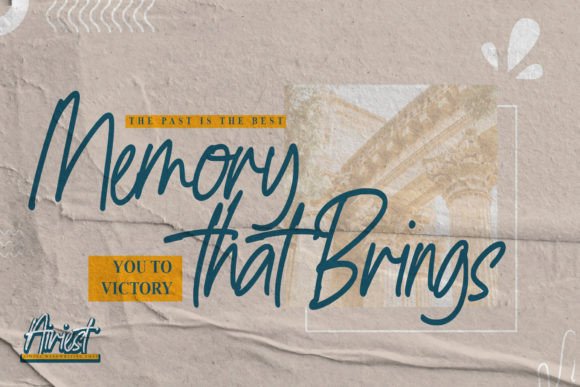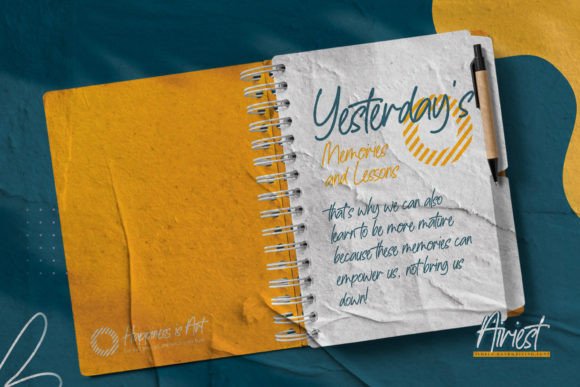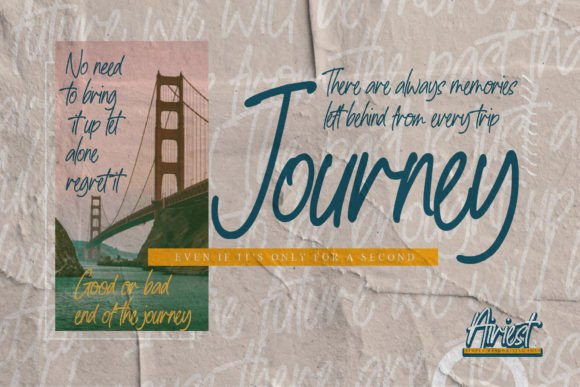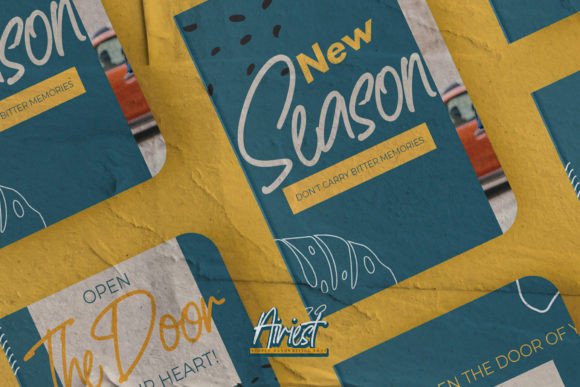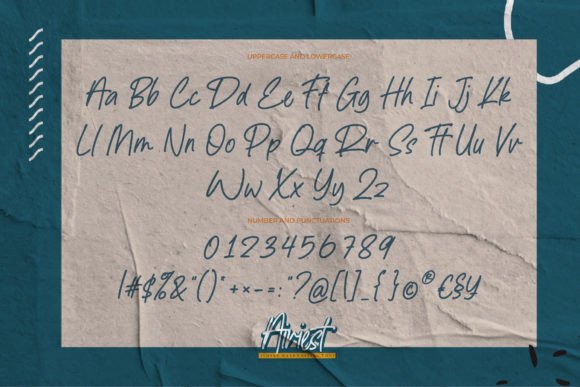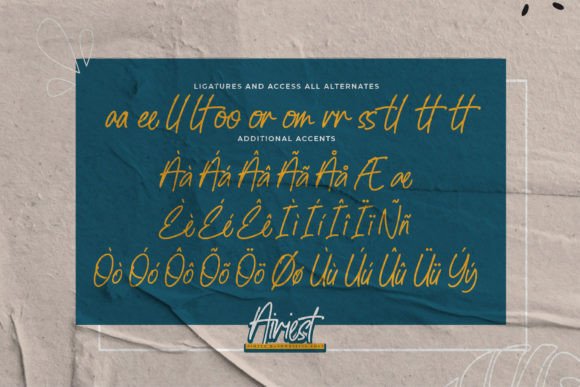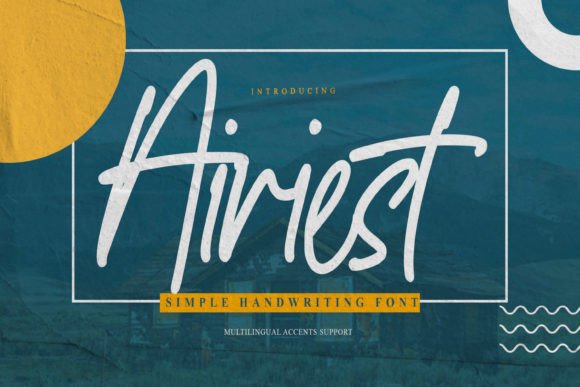
Airiest Font: The Ultimate Choice for Creative Projects
Are you a designer or crafter looking for a font that can elevate your creative projects to the next level? Look no further than Airiest, a simple and natural handwritten font that’s perfect for a wide range of applications. In this article, we’ll explore the features and benefits of Airiest, and why it’s becoming a favorite among designers and crafters.
What is Airiest Font?
Airiest is a beautifully designed handwritten font that’s characterized by its simplicity and natural flow. It’s a versatile font that can be used for various creative projects, including invitations, logos, book covers, crafts, quotes, sporty themes, logotypes, wordmarks, and many more. With its elegant and effortless style, Airiest has the potential to bring each of your creative ideas to the highest level.
Key Features of Airiest Font
So, what makes Airiest stand out from other fonts? Here are some of its key features:
• Simple and Natural: Airiest has a simple and natural handwritten style that’s easy to read and looks great on any medium.
• Versatile: This font is perfect for a wide range of creative projects, from invitations and logos to book covers and crafts.
• Elegant and Effortless: Airiest has an elegant and effortless style that adds a touch of sophistication to any project.
• Masterfully Designed: The font has been masterfully designed to become a true favorite among designers and crafters.
Why Choose Airiest Font?
With so many fonts available, why should you choose Airiest? Here are some compelling reasons:
• Unique Style: Airiest has a unique style that’s both simple and elegant, making it perfect for designers and crafters who want to stand out from the crowd.
• Easy to Read: The font is easy to read, even at small sizes, making it perfect for body text and captions.
• Highly Versatile: Airiest can be used for a wide range of creative projects, from digital designs to print materials.
• Time-Saving: With Airiest, you can save time and effort in designing your projects, as the font is easy to use and looks great on any medium.
How to Use Airiest Font?
Using Airiest is easy! Here are some tips on how to get the most out of this amazing font:
• Pair it with Other Fonts: Airiest looks great when paired with other fonts, so feel free to experiment with different combinations to create a unique look.
• Use it for Headings and Titles: The font is perfect for headings and titles, as it adds a touch of elegance and sophistication to any project.
• Experiment with Colors: Airiest looks great in different colors, so don’t be afraid to experiment with different color schemes to find the one that works best for your project.
In conclusion, Airiest is an amazing font that’s perfect for designers and crafters who want to elevate their creative projects to the next level. With its simple and natural handwritten style, versatility, and elegance, Airiest has the potential to become a true favorite among designers and crafters. So why wait? Try Airiest today and see the difference it can make in your creative projects!
• Is Airiest suitable for body text? While Airiest is perfect for headings and titles, it may not be suitable for body text due to its elegant and cursive style.